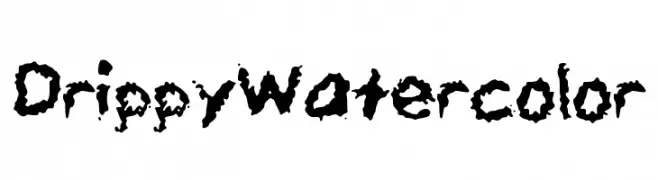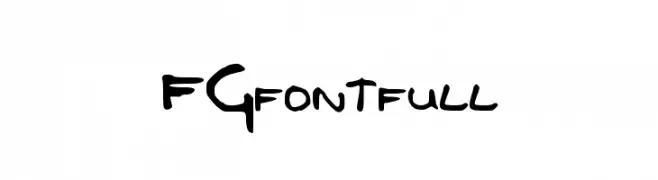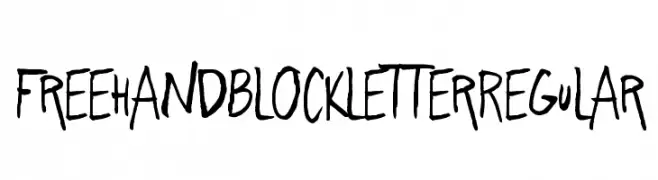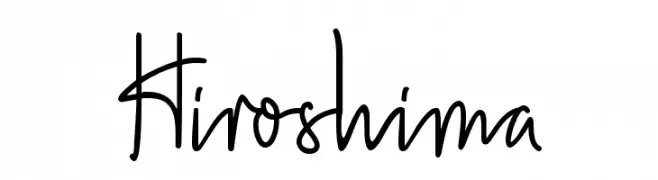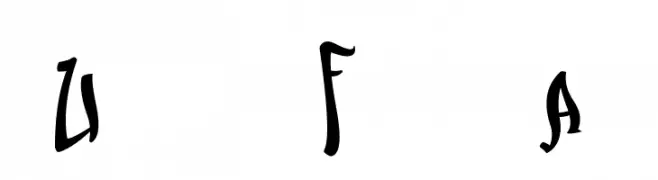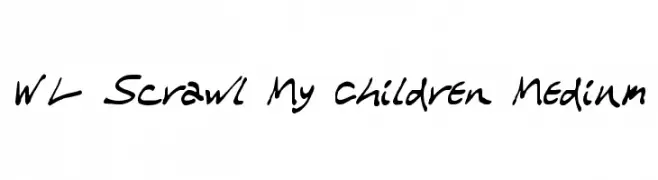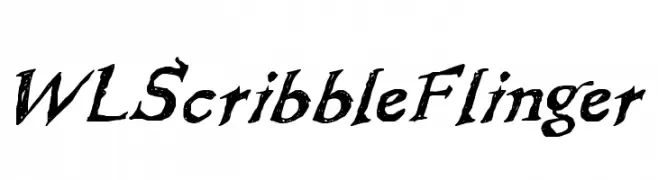
A bold, artistic font with an ink-like, fluid appearance.
A bold, hand-painted style font with dynamic, expressive characters.
A dynamic handwritten font with fluid, expressive strokes and playful elegance.
A bold, playful handwritten font with dynamic strokes and a lively appearance.
Playful, childlike doodle font with irregular, sketchy lines.
A playful, handwritten font with bold, dynamic strokes and a whimsical style.
A dynamic, hand-drawn font with sharp, angular strokes and a lively appearance.
A playful, hand-drawn font with bold, expressive strokes and a casual style.
A drippy, watercolor-inspired font with an artistic, fluid design.
A dynamic, hand-drawn font with bold, irregular strokes and a playful style.